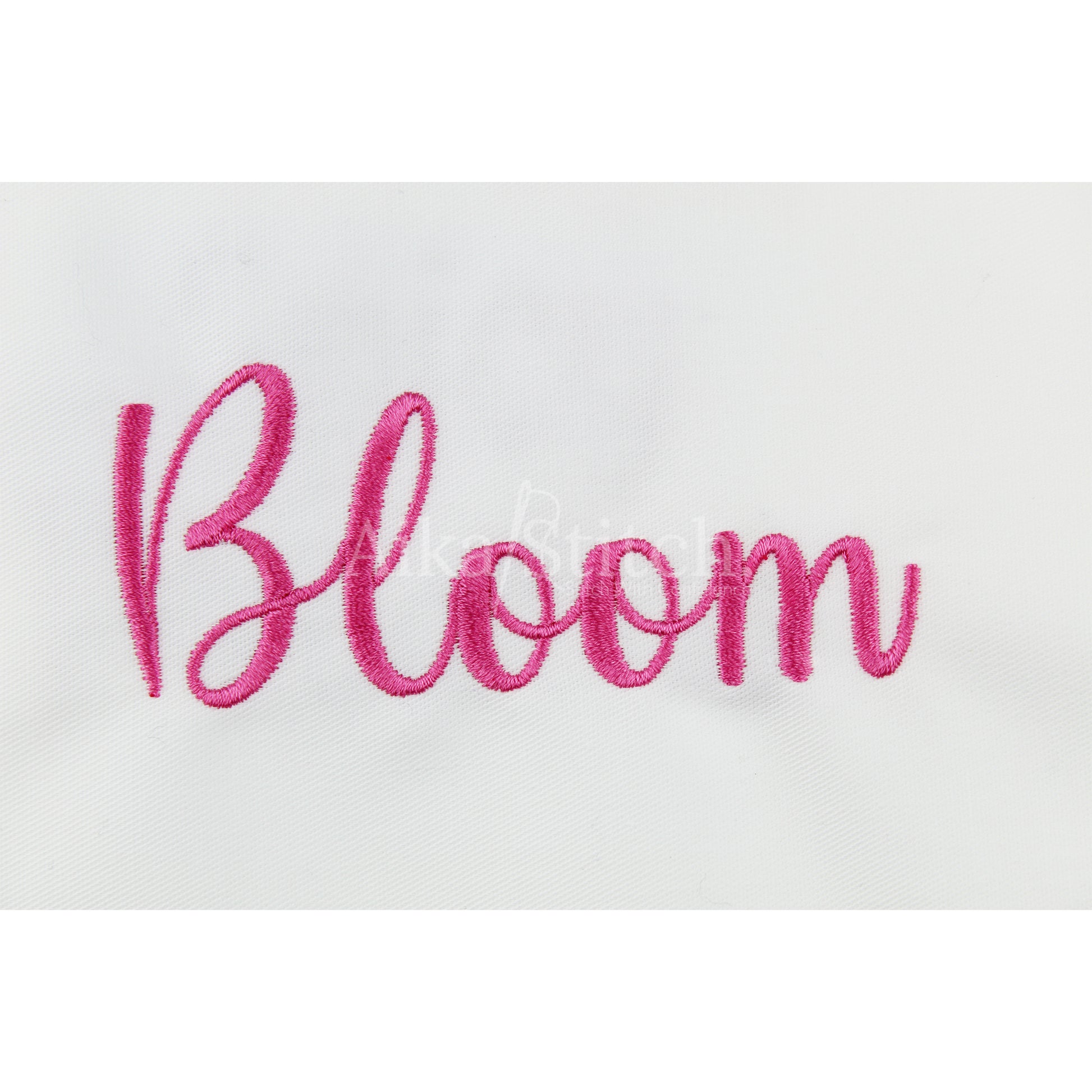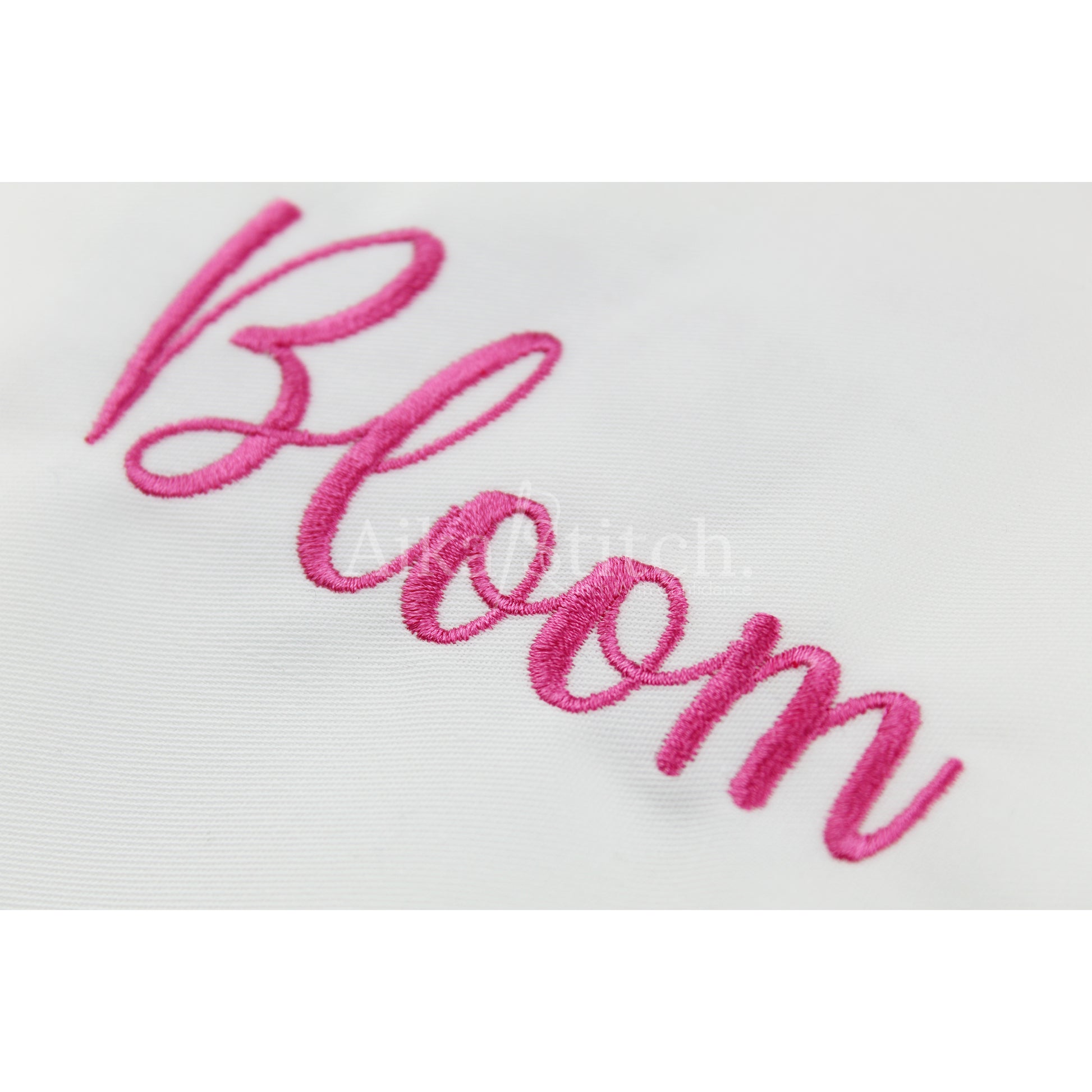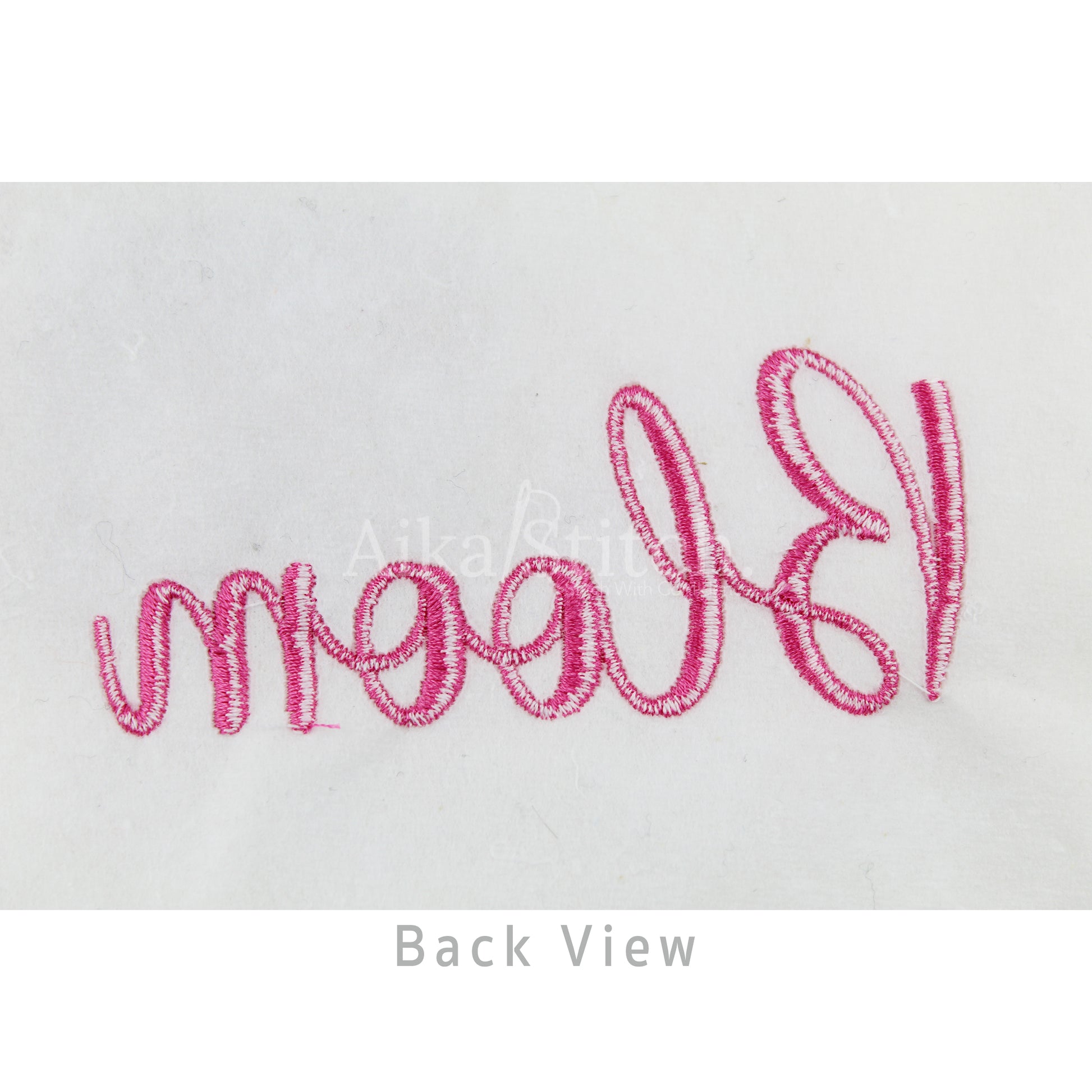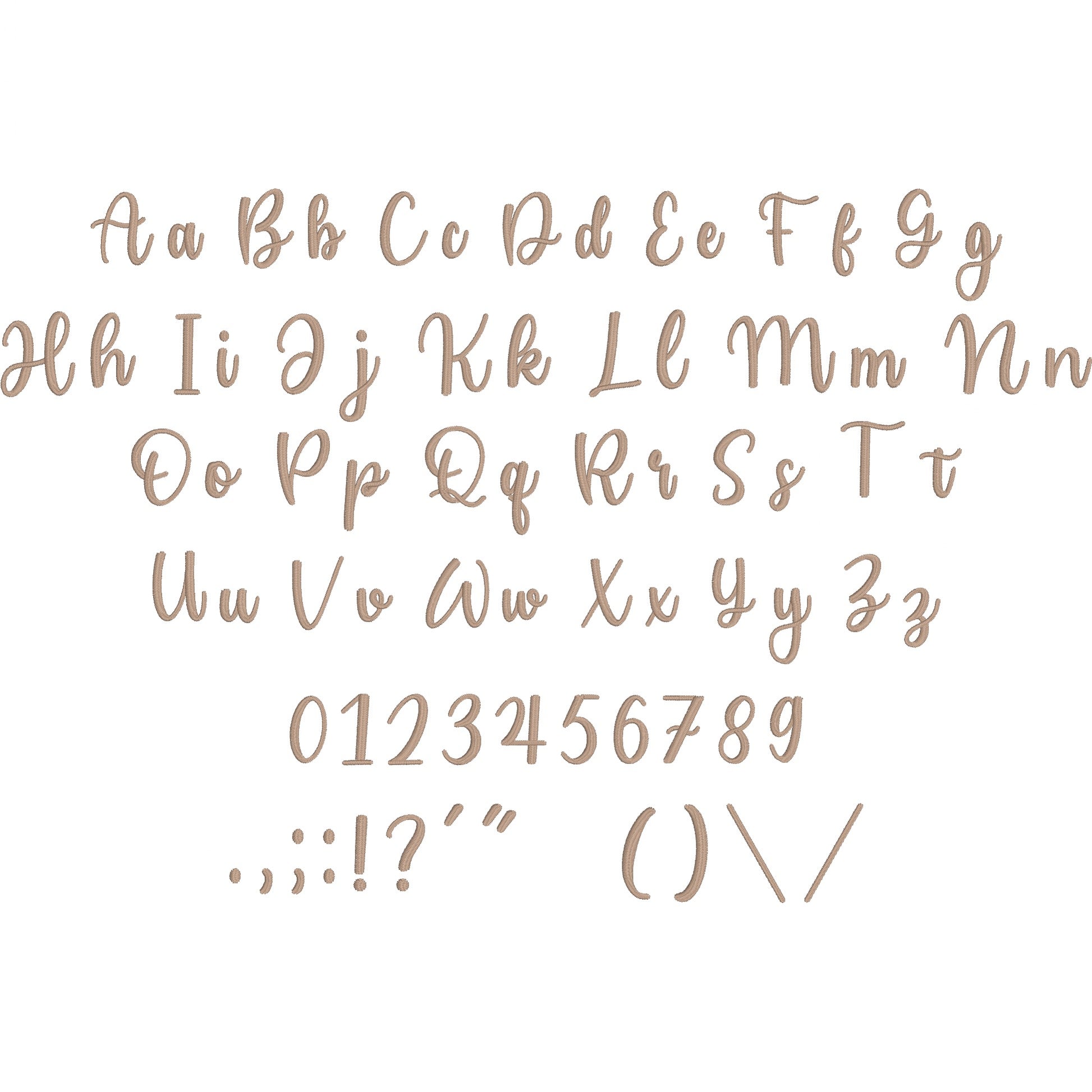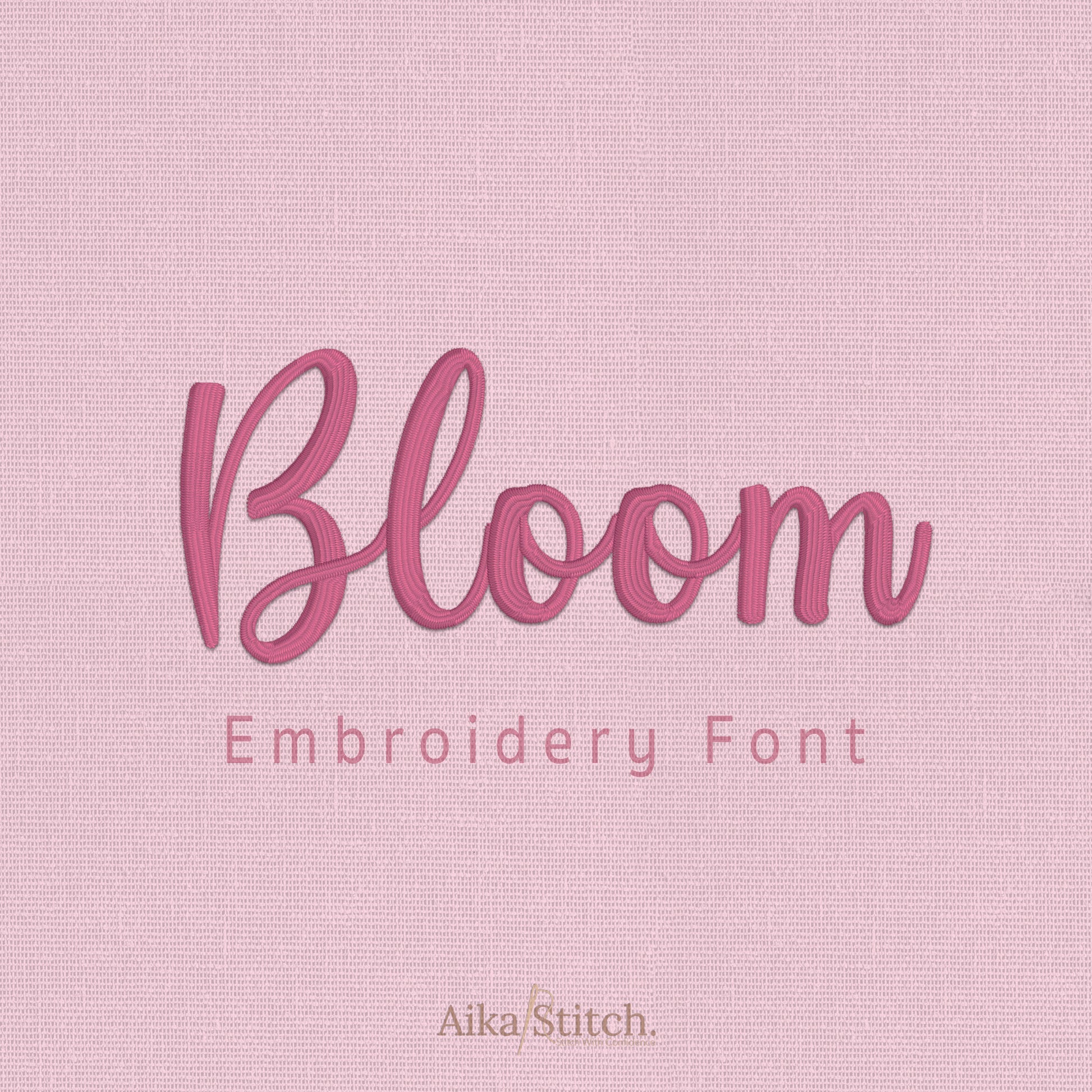
Cailyn Bloom Script Handwritten Embroidery Font
Cailyn Bloom is a Script Handwritten machine embroidery font featuring beautiful satin stitch lettering. Perfect for shirts, towels, hats, baby gifts, monograms, and small business embroidery projects.